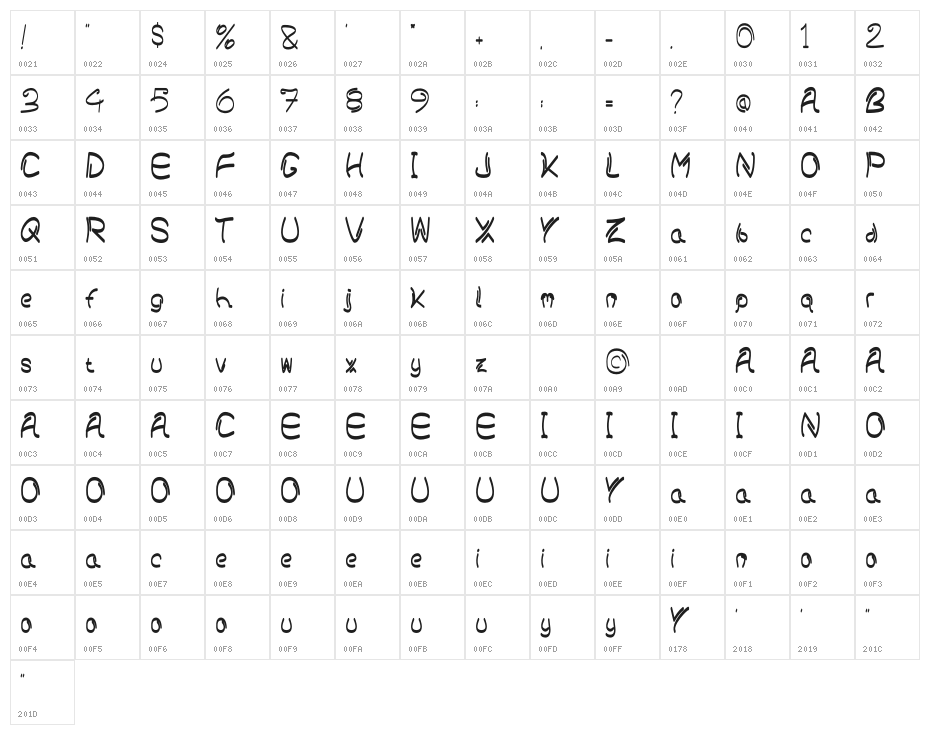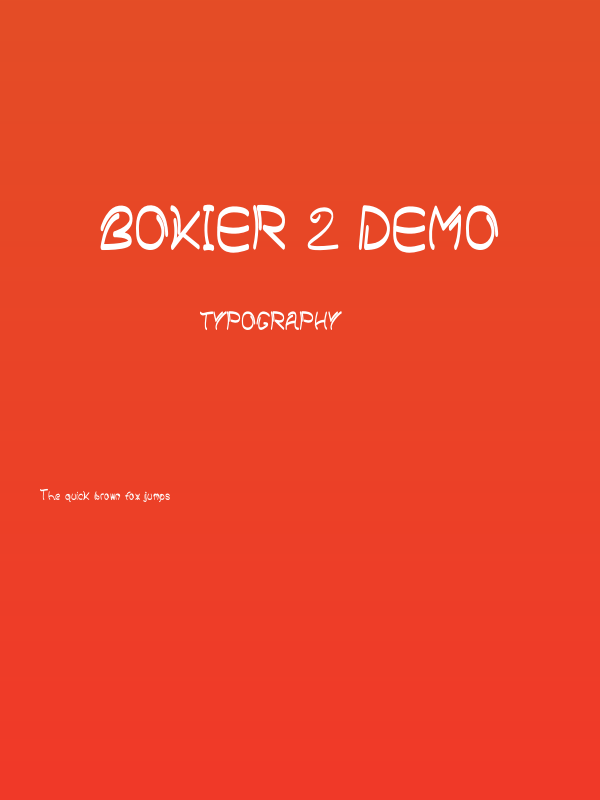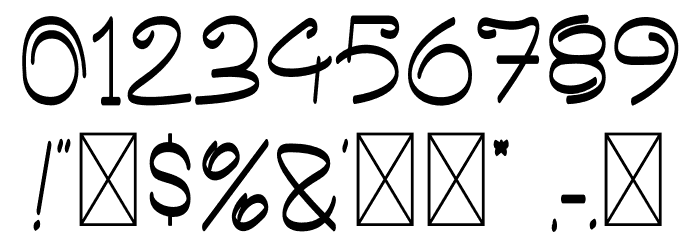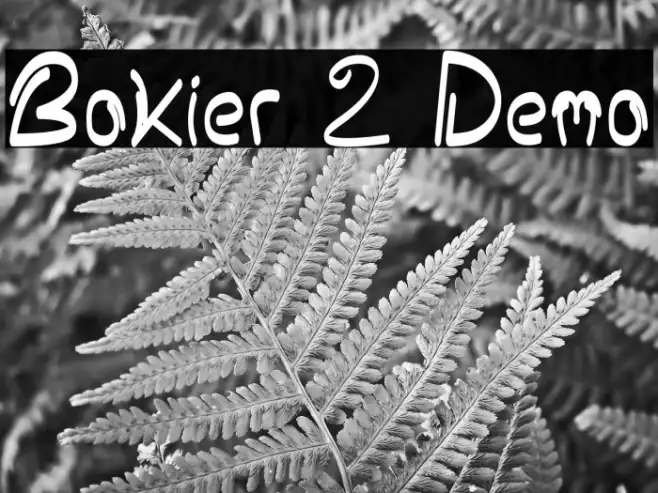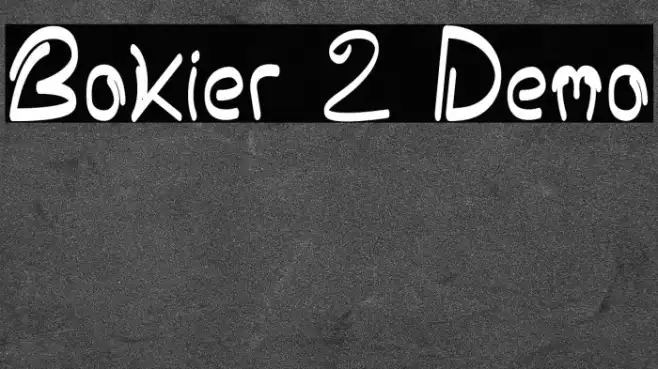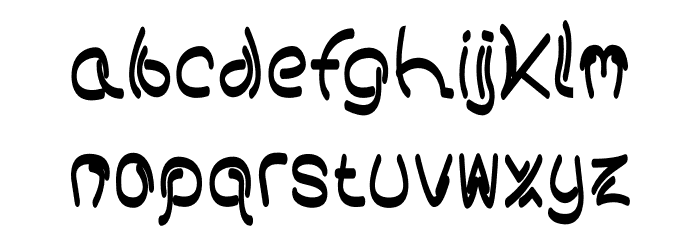
Bokier 2 Demo Font
Bokier 2 Demo Description
This font features a playful and dynamic style, characterized by its bold and rounded letterforms. The strokes are thick and consistent, giving it a strong presence. Each character has a unique flair, with some letters having unexpected curves and angles, adding to its whimsical nature. The uppercase and lowercase letters maintain a cohesive look, while the numerals and special characters are equally expressive. This font's design is suitable for creative and informal contexts, where a sense of fun and individuality is desired.
| Proposed Projects | Ideal for children's books, playful branding, posters, and creative projects that require a fun and engaging typeface. |